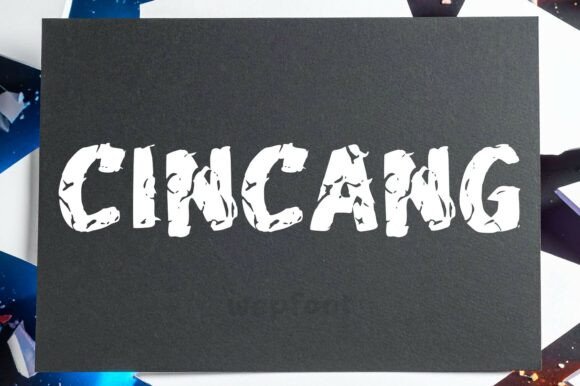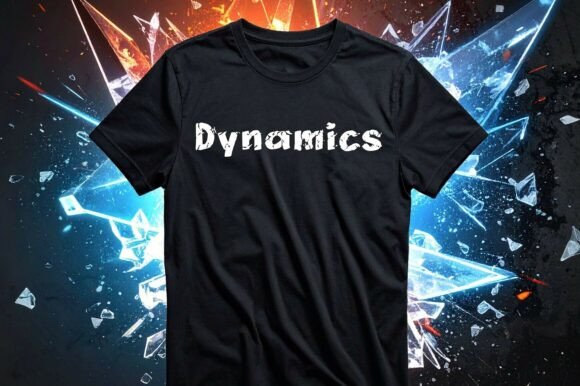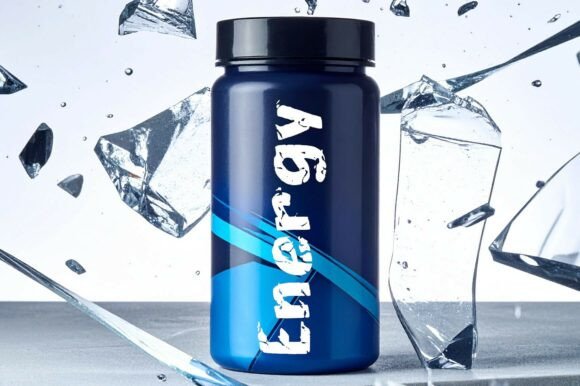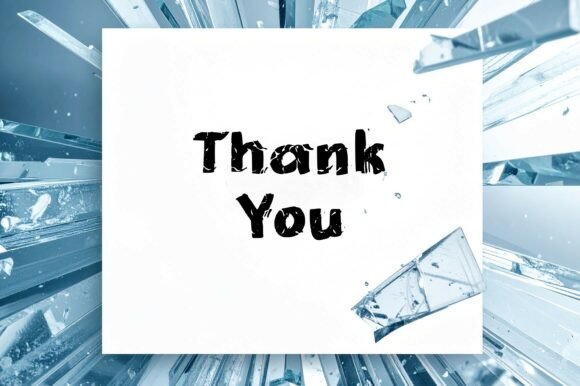
Unleash the Power of Cincang Font: Elevate Your Designs with a Bold and Edgy Twist
Are you tired of using the same old fonts that fail to capture the attention of your audience? Look no further than Cincang, a showpiece font that embodies the perfect blend of audacity, texture, and rugged charm. This dynamic font is designed to make a lasting impression, projecting an edgy, metropolitan aura that’s reminiscent of etched rock or splintered wood.
The Essence of Cincang: A Font that Exudes Energy and Intensity
Cincang is more than just a font – it’s an experience. It’s a visual representation of energy, intensity, and power. With its robust set of uppercase letters, numbers, and pivotal punctuation, Cincang is the perfect choice for designers who want to make a bold statement. Whether you’re working on a project for an intense sporting brand, a muscular event poster, or an enthralling game title, Cincang is the ideal font to help you cut through the visual noise.
Exploring the Versatility of Cincang
One of the standout features of Cincang is its versatility. This font is perfect for a wide range of design applications, including:
- Intense sporting brands: Give your brand a bold and edgy makeover with Cincang’s dynamic and high-energy aesthetic.
- Muscular event posters: Create eye-catching posters that demand attention with Cincang’s rugged and textured charm.
- Enthralling game titles: Add a touch of excitement and energy to your game titles with Cincang’s bold and adventurous vibe.
- Dynamic sportswear graphics: Elevate your sportswear designs with Cincang’s modern and edgy aesthetic.
- Breath-taking headlines: Make a lasting impression with Cincang’s bold and attention-grabbing headlines.
- Raw, evocative album covers: Give your album covers a bold and edgy makeover with Cincang’s textured and rugged charm.
Why Cincang is Perfect for Industrial and Grunge Trends
Cincang is an ideal choice for designers who want to create designs that echo industrial or grunge trends. The font’s textured and rugged charm is reminiscent of rough, urban landscapes, making it perfect for designs that require a bold and edgy aesthetic. Additionally, Cincang’s bold and adventurous vibe makes it an excellent choice for designers seeking inspiration from street art.
Unleash Your Creativity with Cincang
Cincang is more than just a font – it’s a creative tool that can help you elevate your designs and make a lasting impression on your audience. With its bold and edgy aesthetic, Cincang is perfect for designers who want to push the boundaries of their creativity and create designs that demand attention.
So why settle for ordinary fonts when you can make a bold statement with Cincang? Make way for this showpiece font as it plows through visual chaos, infusing your inventive designs with an unmistakable surge of vigor and kinetic energy. With Cincang, you can guarantee that your message reverberates with force and directness, leaving a lasting impression on your audience.
Key Features of Cincang Font
- Robust set of uppercase letters, numbers, and pivotal punctuation
- Audacious, textured, and subtly rugged charm
- Edgy, metropolitan aura that’s reminiscent of etched rock or splintered wood
- Perfect for intense sporting brands, muscular event posters, enthralling game titles, dynamic sportswear graphics, breath-taking headlines, and raw, evocative album covers
- Ideal for designs that echo industrial or grunge trends, and those seeking inspiration from street art
In conclusion, Cincang is a powerful font that’s designed to make a lasting impression. With its bold and edgy aesthetic, Cincang is perfect for designers who want to elevate their designs and create a memorable mark. So why wait? Unleash the power of Cincang today and take your designs to the next level!